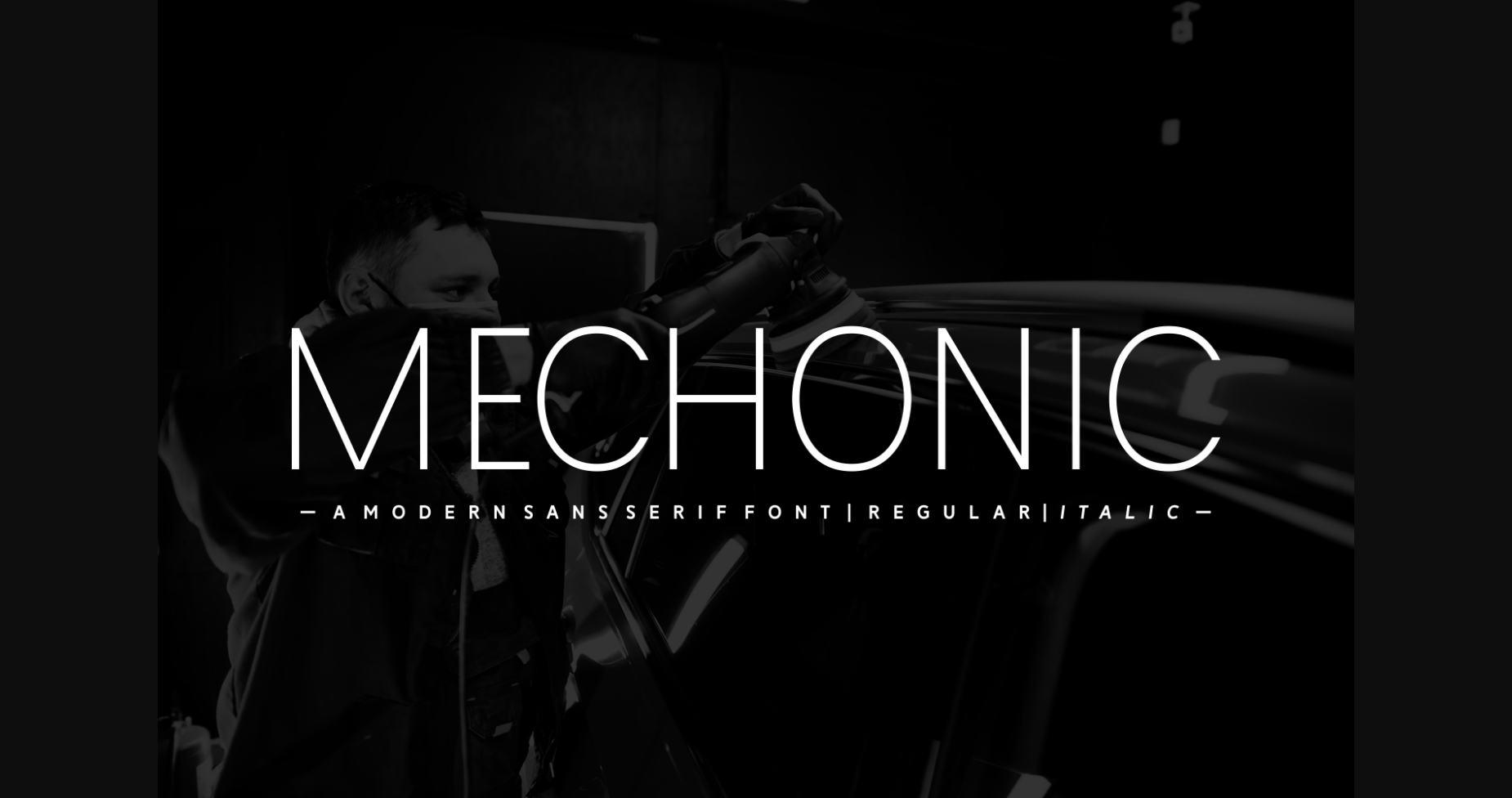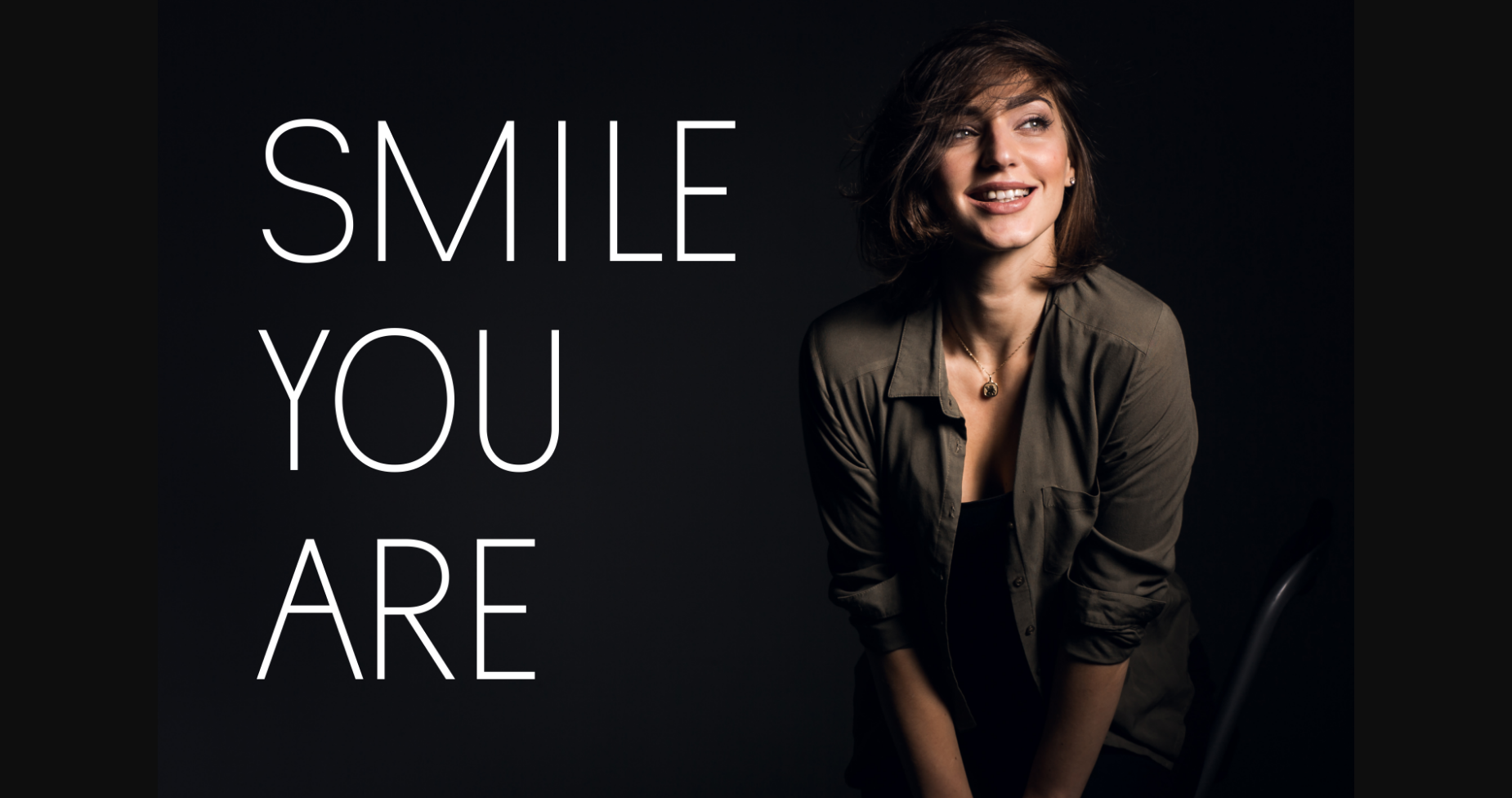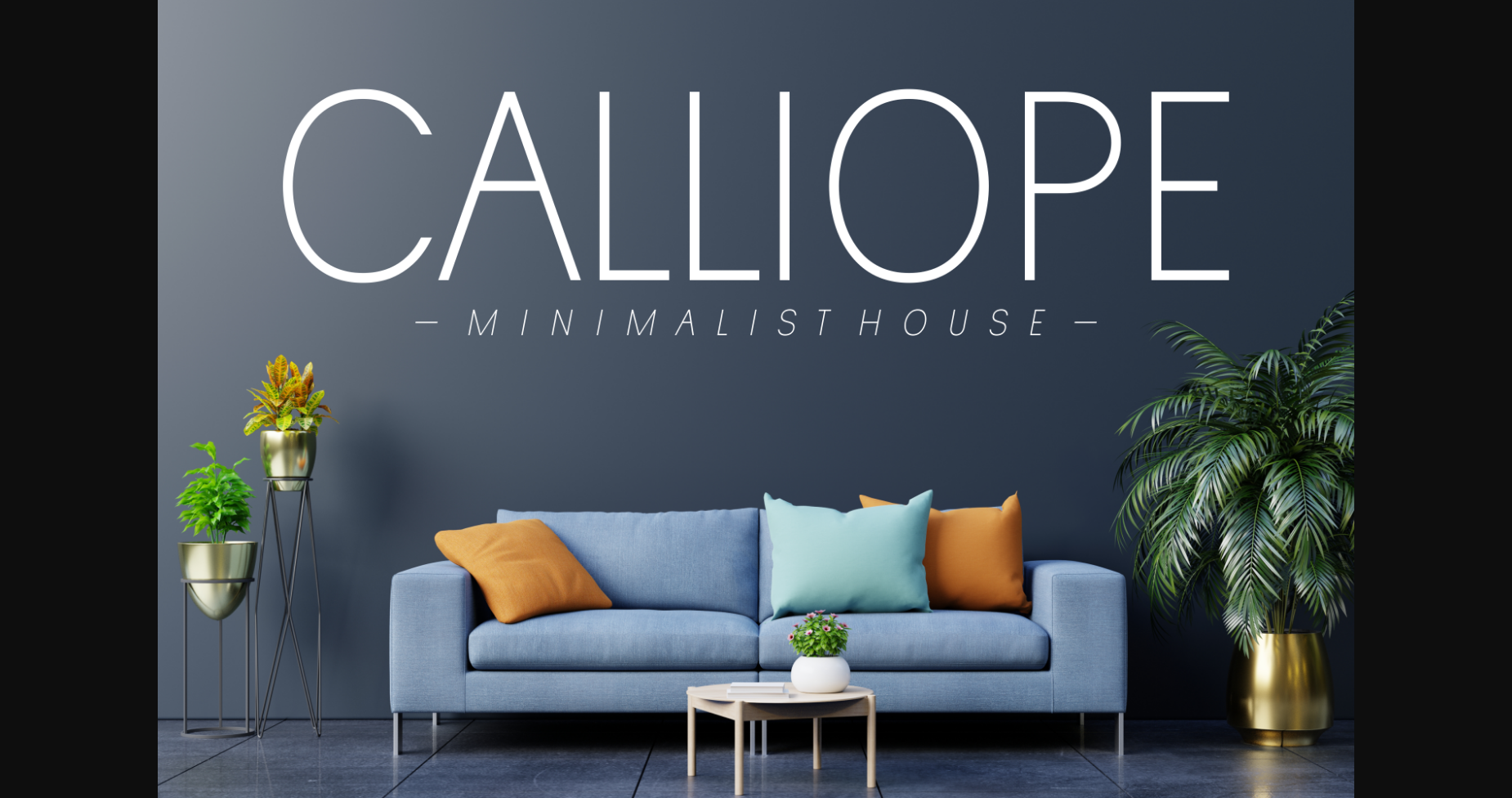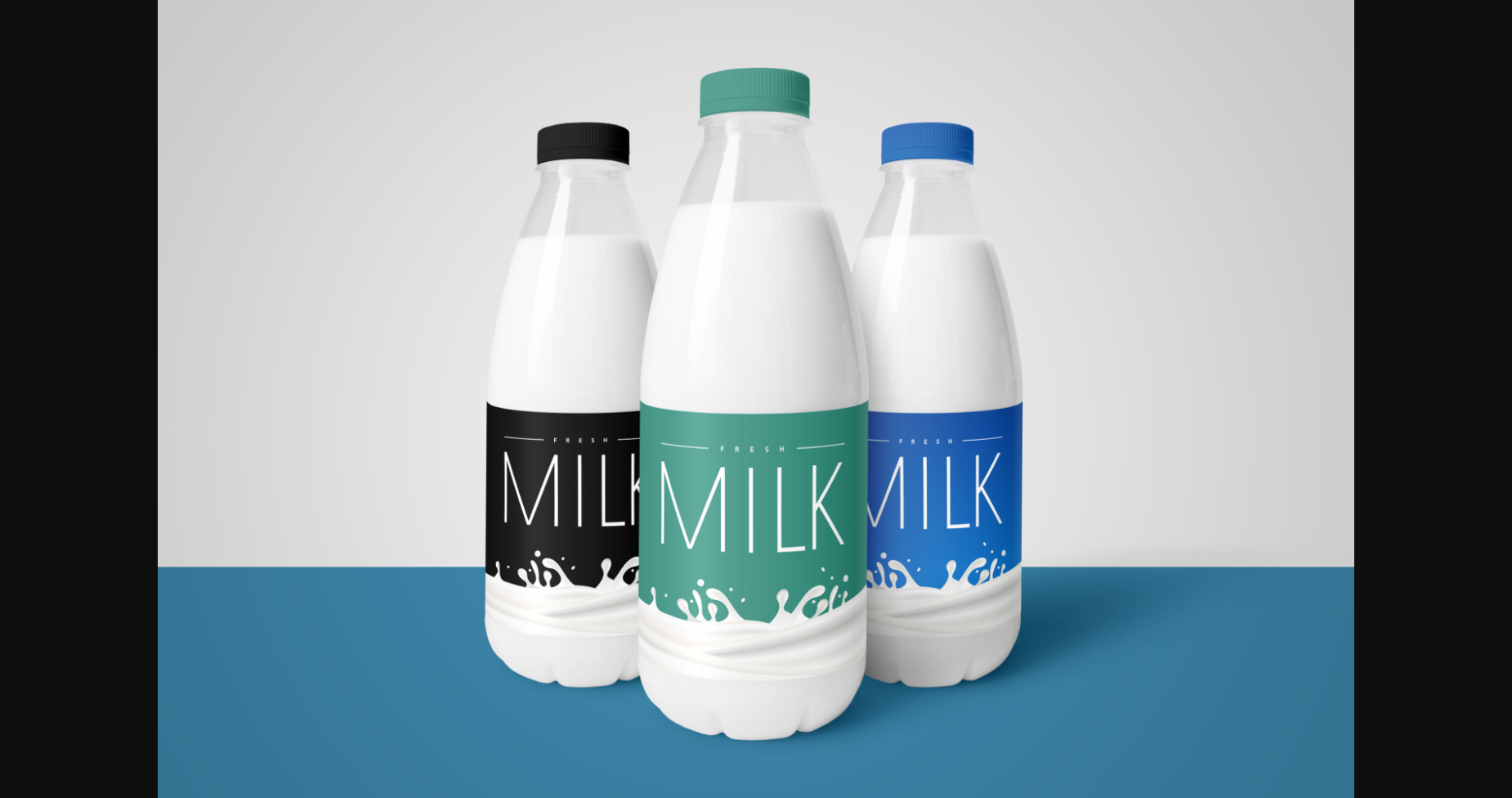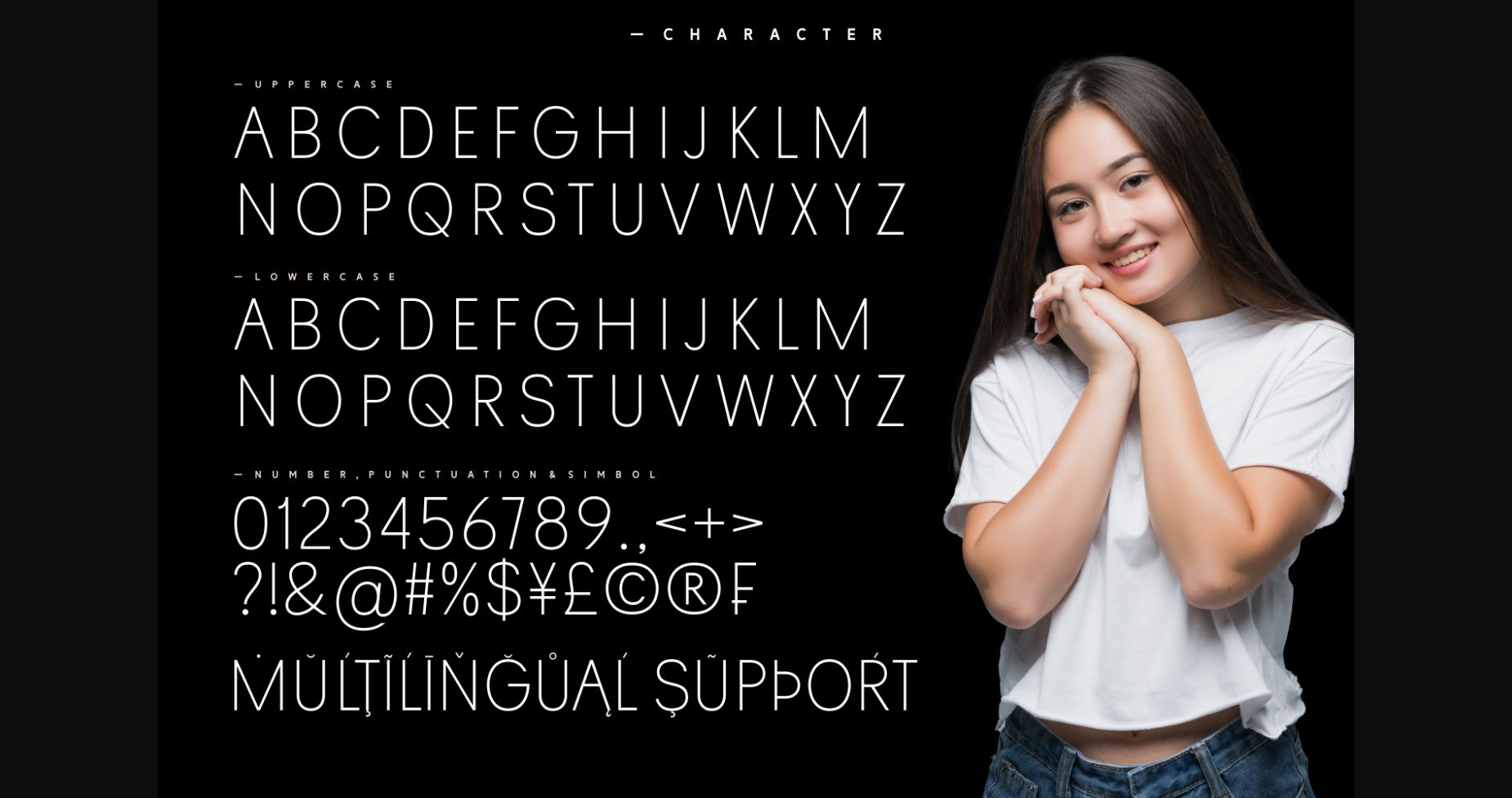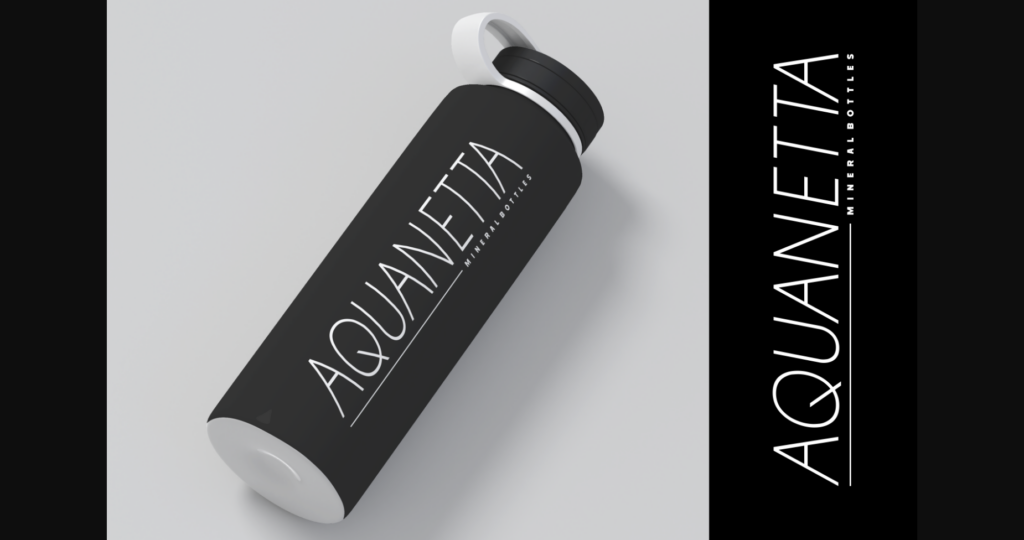
About Mechonic Font
Mechonic is a modern and minimalistic sans serif font that boasts clean lines and a futuristic look. It’s perfect for sleek and professional designs. Its uniform letterforms, consistent spacing, and sharp edges make it a great choice for headings, titles, logos, and branding materials.